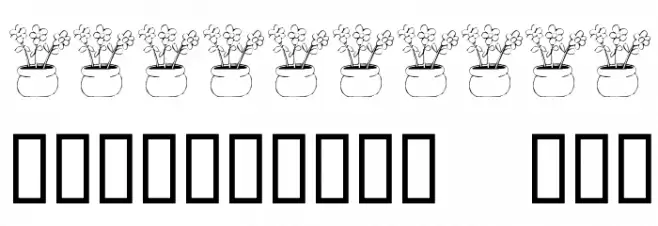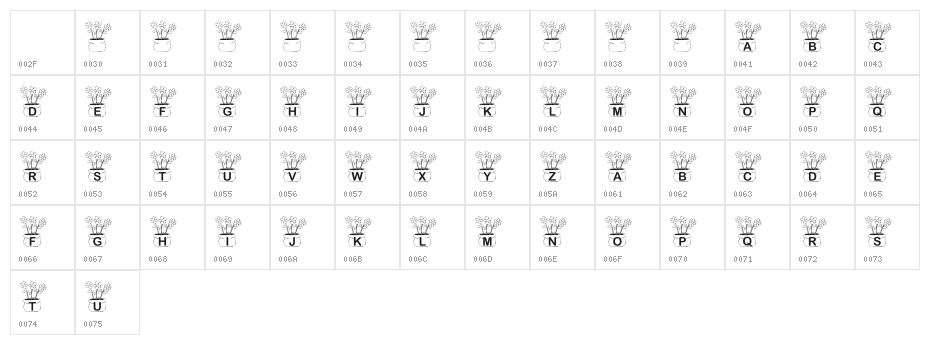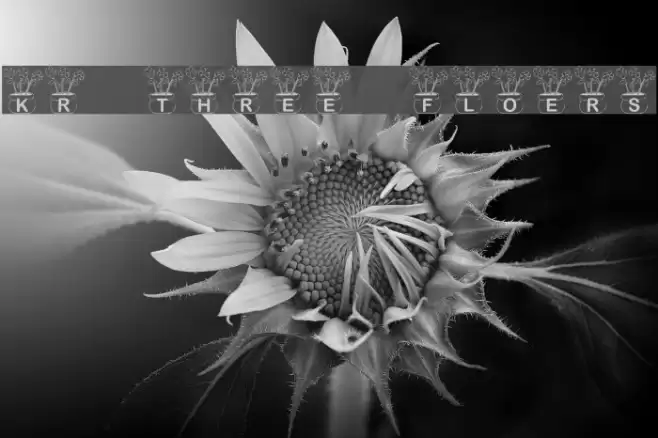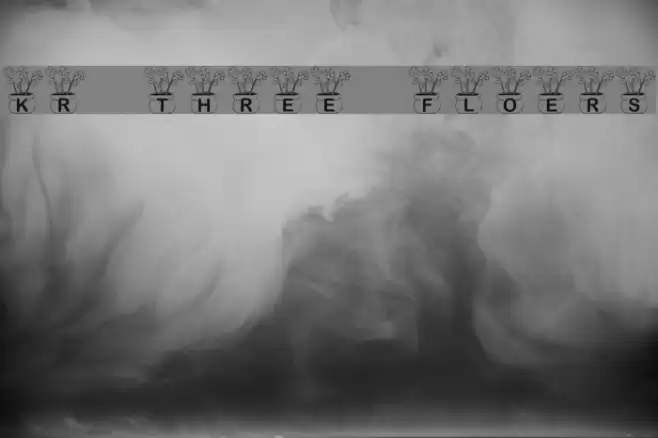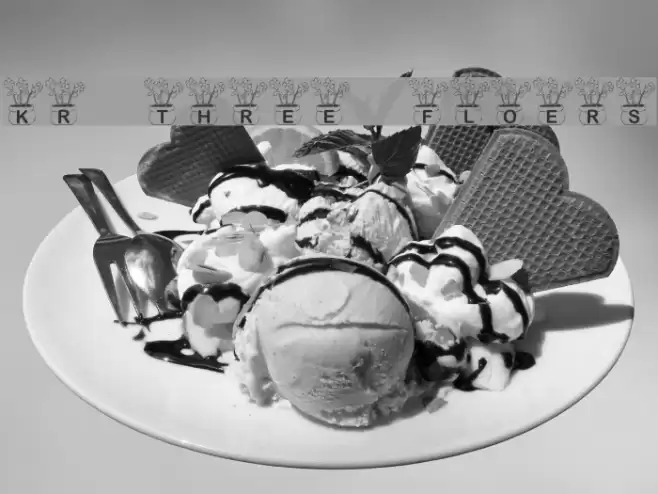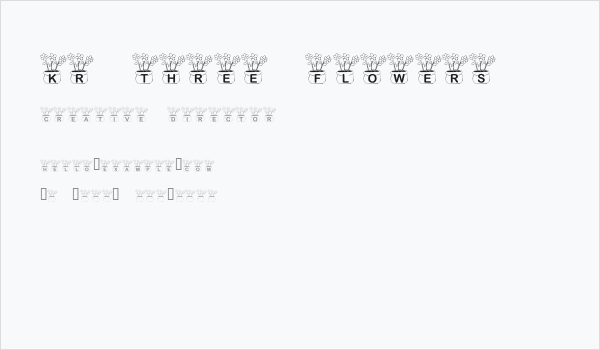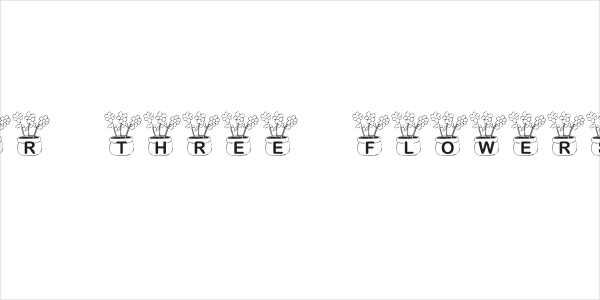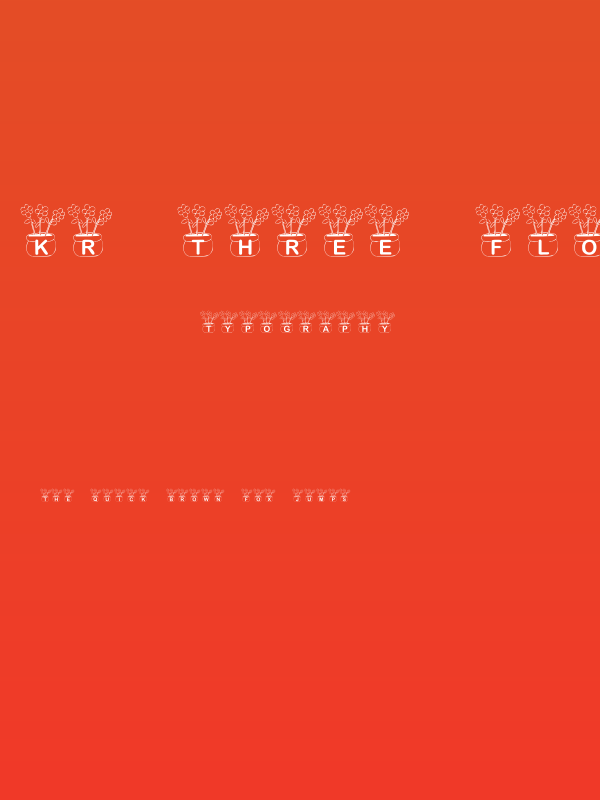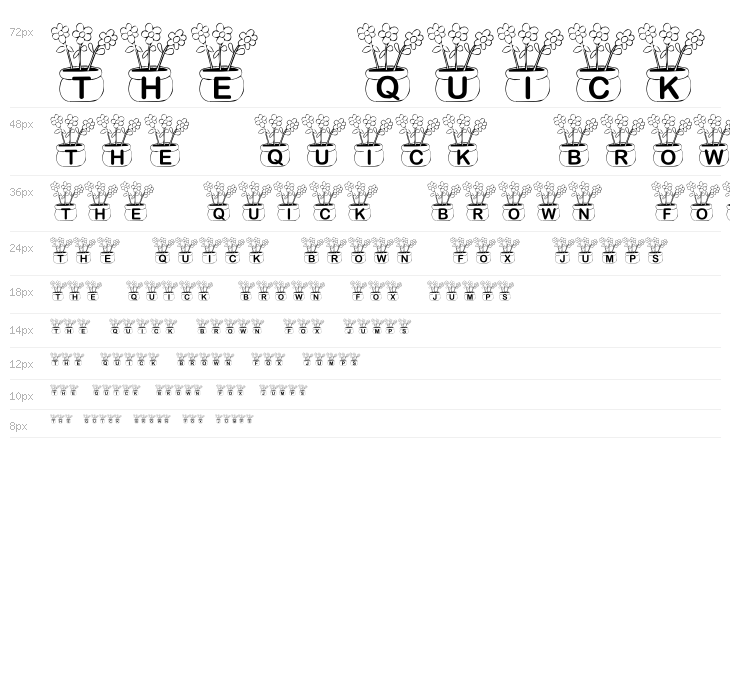
KR Three Flowers Font
KR Three Flowers Description
This decorative font features uppercase letters A-Z, each encased in a pot with three stylized flowers sprouting from the top. The design is whimsical and playful, making it ideal for projects that require a touch of nature or a garden theme. The letters are bold and clear, ensuring readability despite the intricate floral embellishments. The absence of lowercase letters, numbers, and special characters suggests its primary use in decorative contexts rather than functional text. The font's unique style makes it suitable for creative projects, invitations, or themed events.
| Proposed Projects | Perfect for garden-themed invitations, children's book covers, or playful branding materials. |